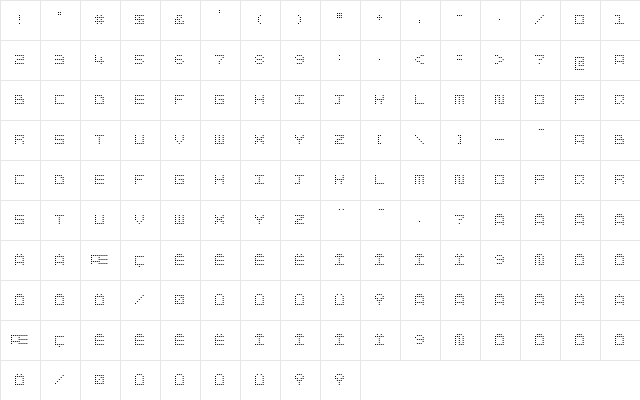
snapix Regular
| Foundry | Louis Rigaud |
| Designer | Louis Rigaud |
Design Context for snapix Typeface
snapix takes a measured approach to typography — its balanced proportions and neutral character make it a reliable workhorse for both digital and print work.